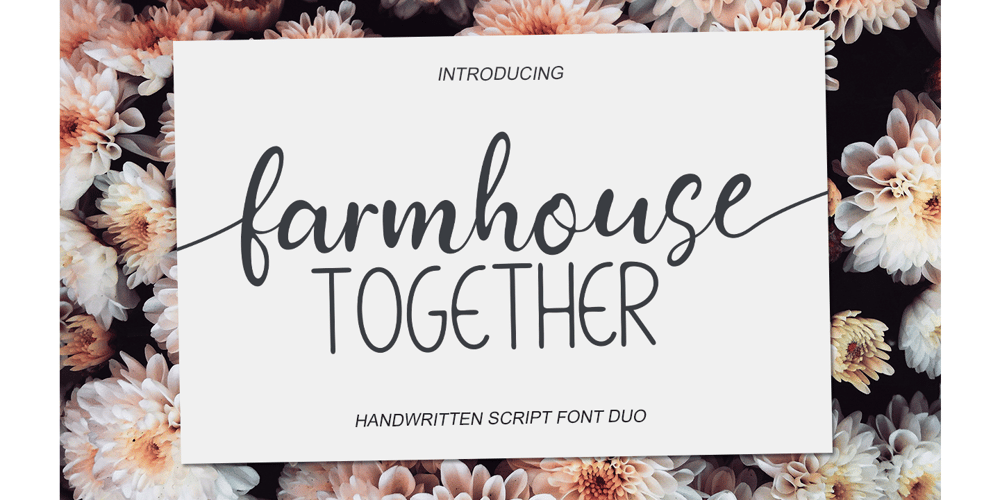
Farmhause Script Font Family was designed by Andri Kurniawan and published by Struggle Studio. Farmhause Script contains 2 styles and family package options. Farmhouse Together – DUO is a lovely, pretty handwritten font with lots of alternative, binding styles.Has two Styles (Sans & Script) in one Font.